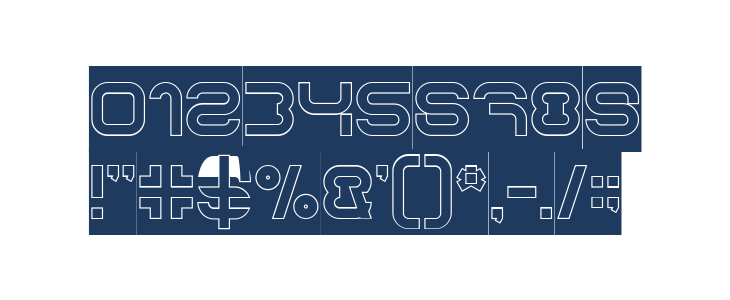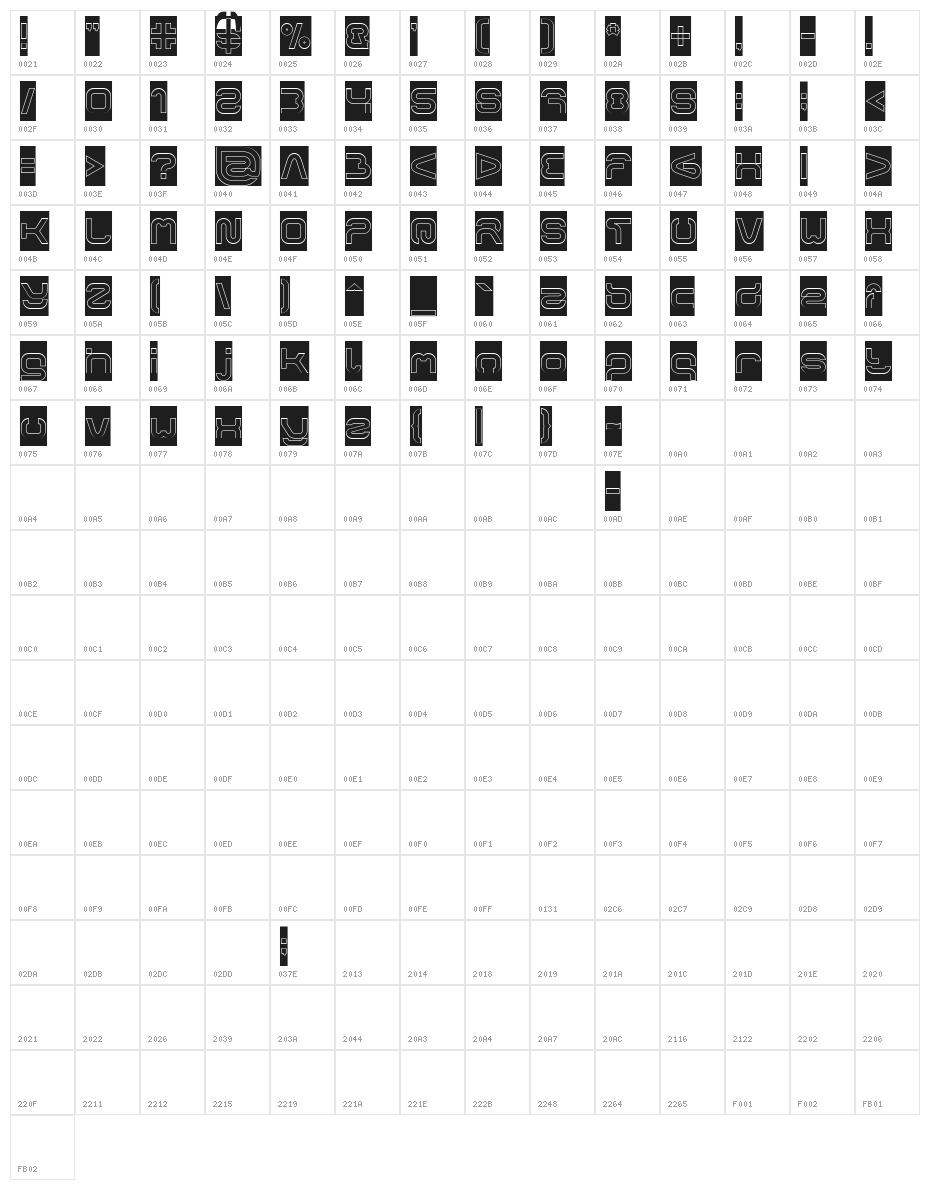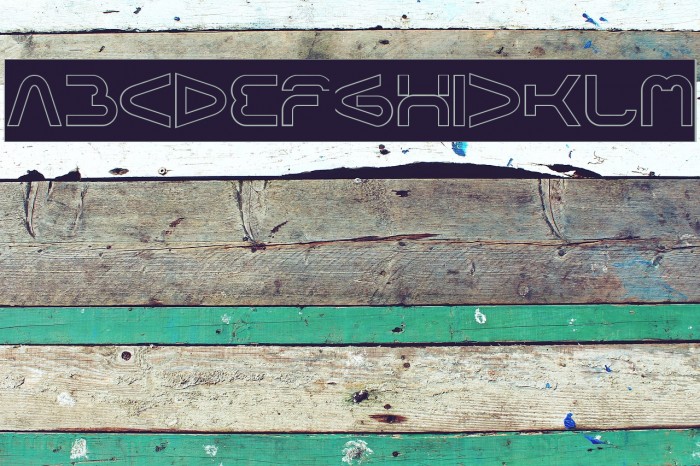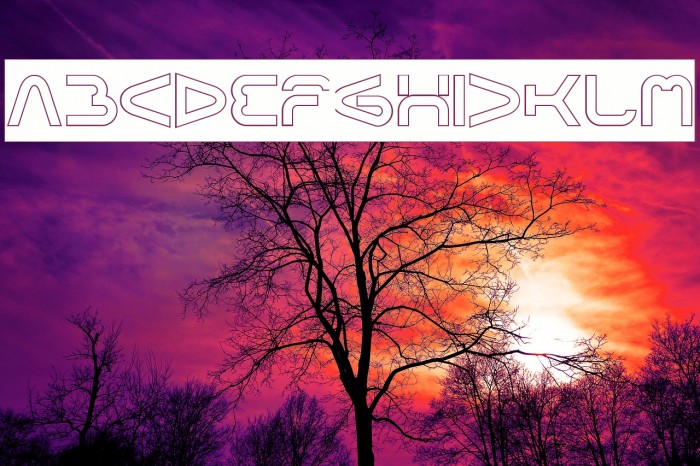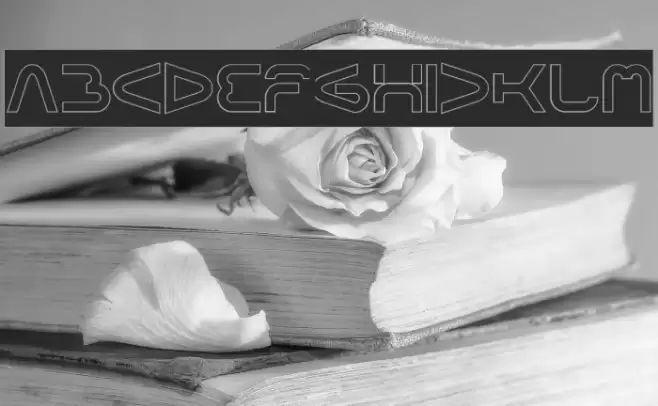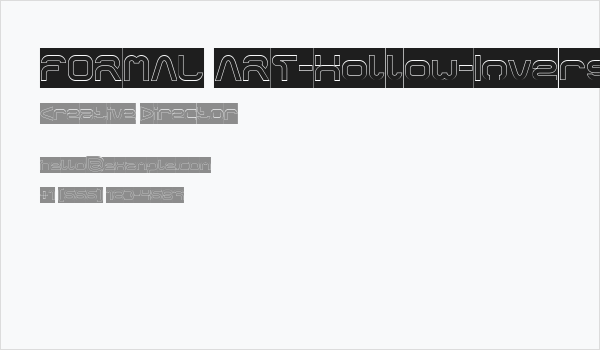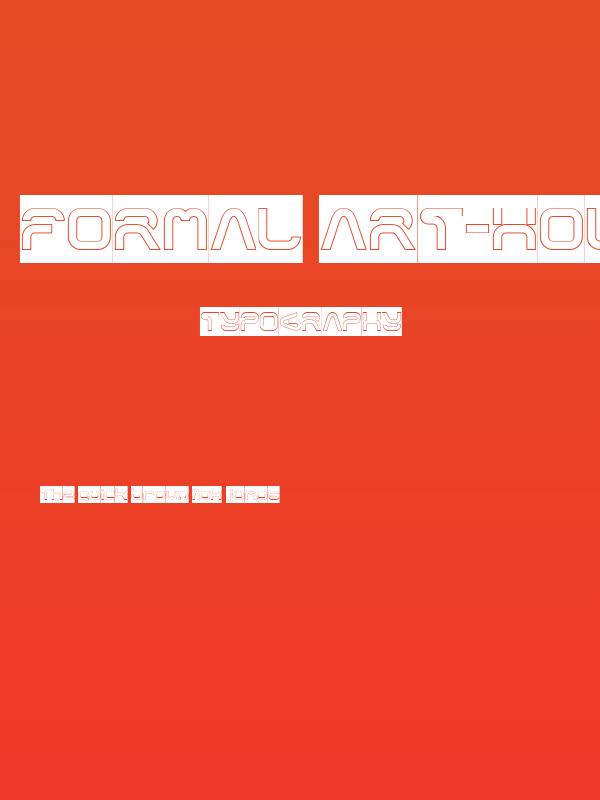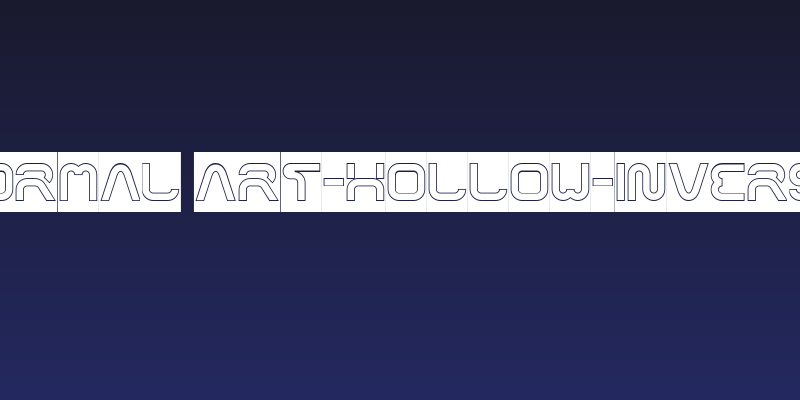
FORMAL ART-Hollow-Inverse Font
FORMAL ART-Hollow-Inverse Description
This font features a unique hollow design with an inverse style, creating a striking visual effect. The characters are outlined with a consistent thickness, giving them a futuristic and digital appearance. The geometric shapes and angular lines contribute to its modern aesthetic, making it stand out in any design. The uppercase and lowercase letters maintain a uniform style, while the numbers and special characters complement the overall look. This font is ideal for projects that require a bold and eye-catching typeface.
| Proposed Projects | Ideal for digital art, tech-themed projects, modern posters, and branding that requires a distinctive and bold typeface. |